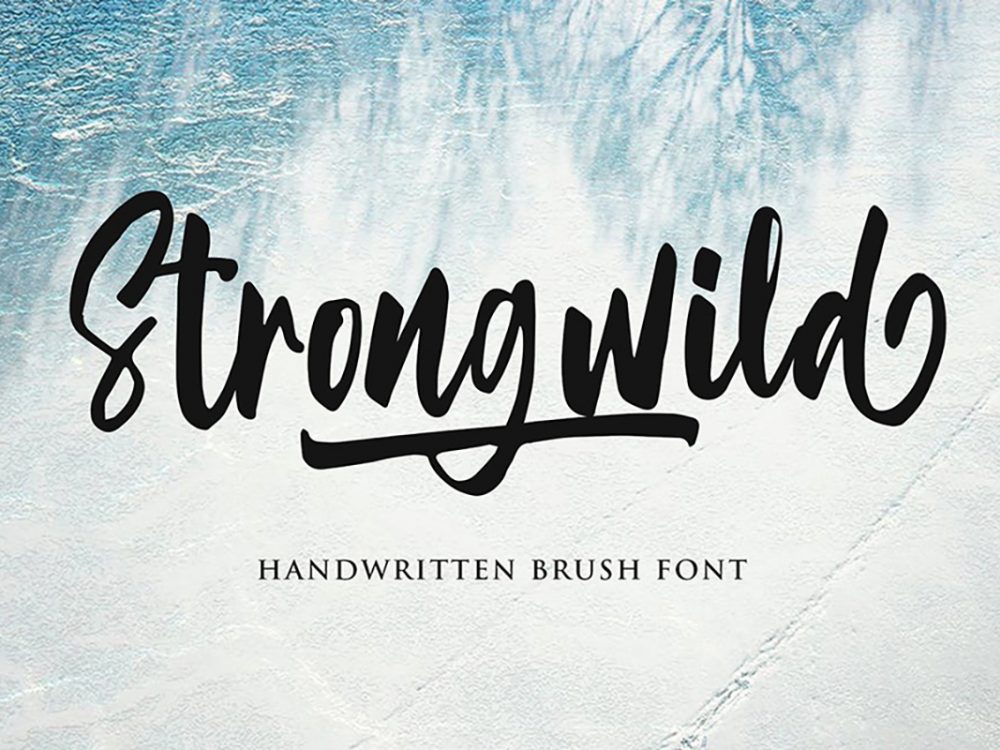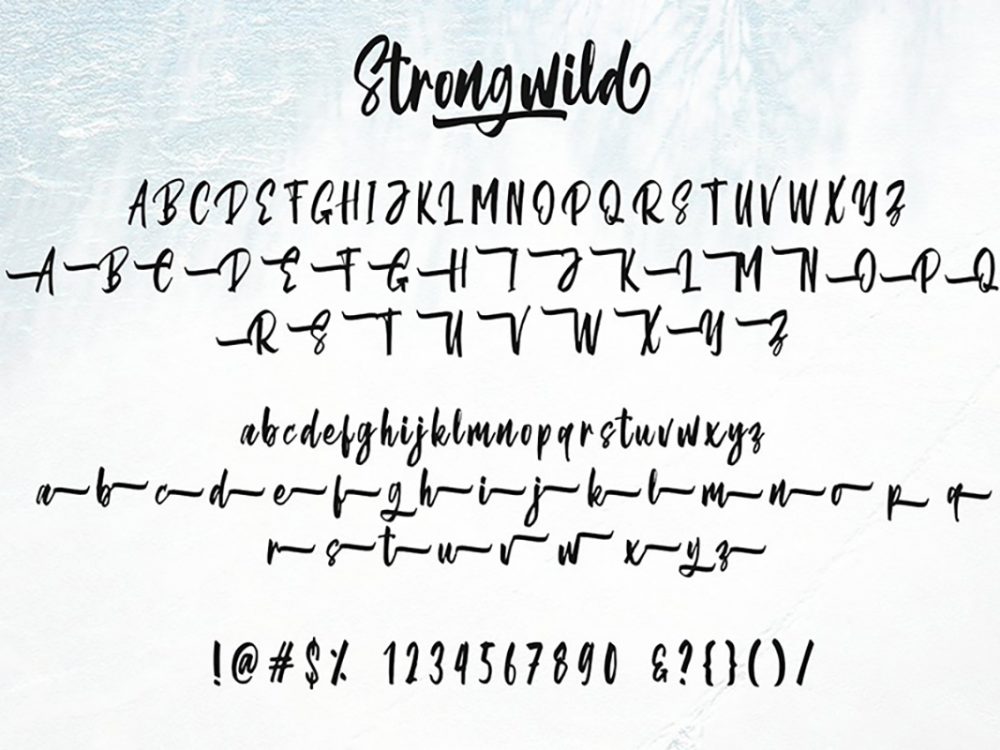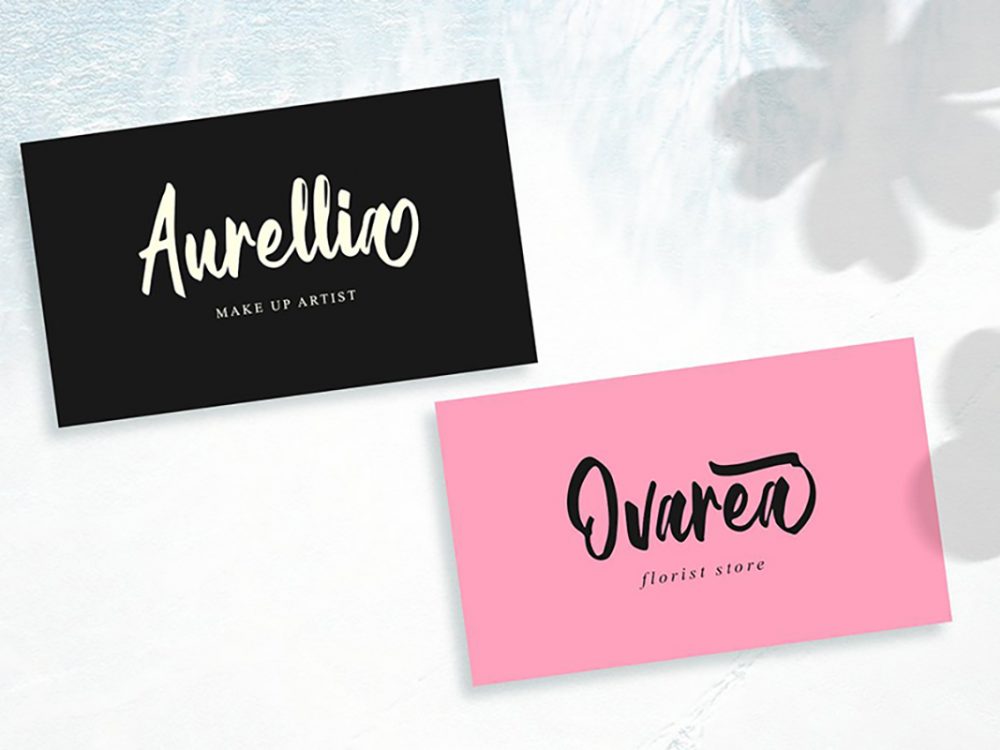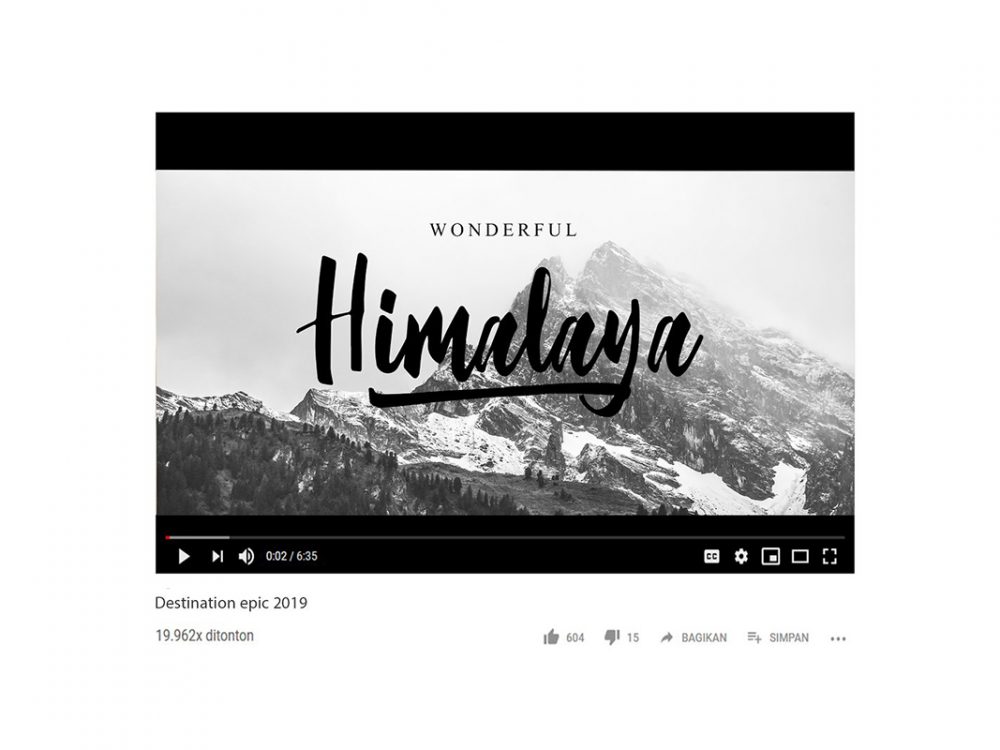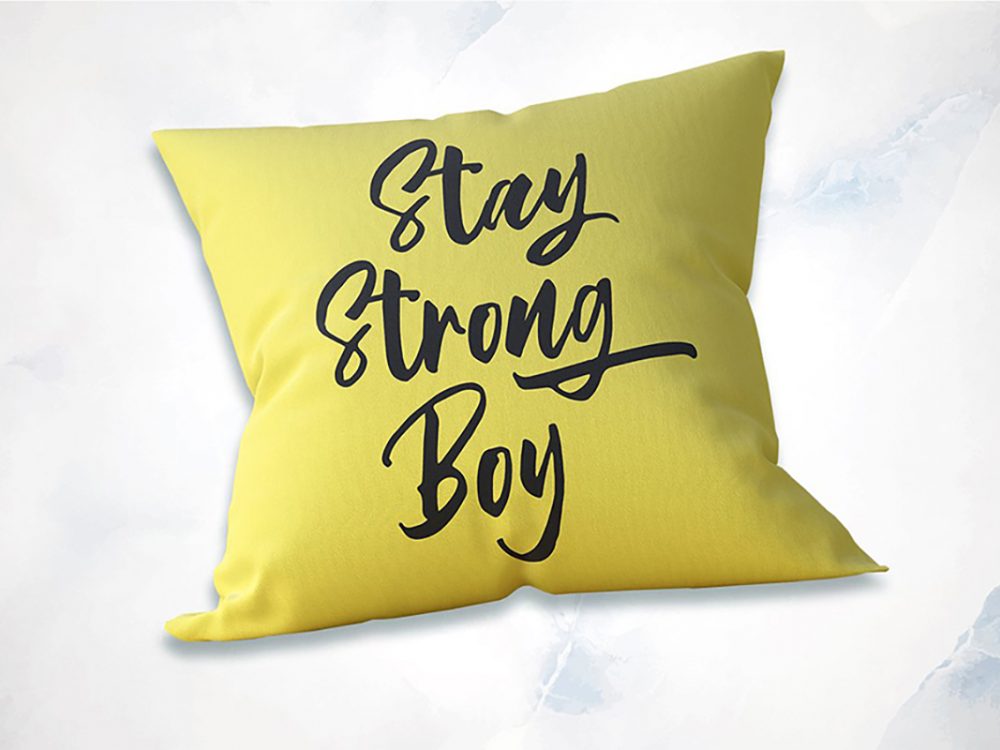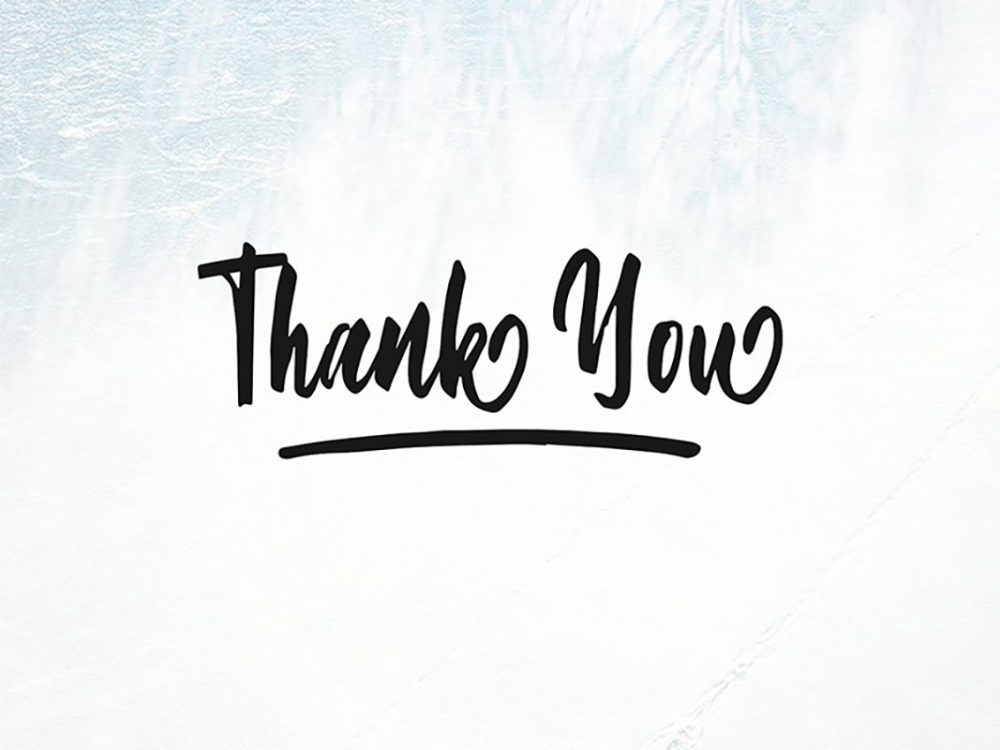
Strongwild Handwritten Brush Font
Strongwild Handwritten Brush Font is a beautiful interesting modern handwritten font that simulates writing with a brush, has an elegant style, and will help you create unique design projects that a script font requires. Use this font to create memorable posters, wedding invitations, cards, branding, flyers, and more. If you wish to access more features and use them for commercial work please buy the full version.